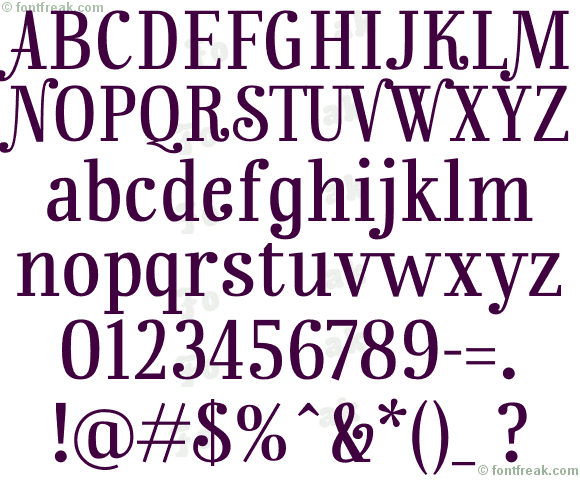
Rainbow Mansion os figures
Rainbow Mansion lining figures
About Rainbow Mansion os figures
Rainbow Mansion os figures font, created by Kelvin Ma using FontForge, is a captivating display typeface that combines elegance with a playful twist. This font is characterized by its unique stroke weight and contrast, offering a balanced and harmonious appearance. The figures feature a distinct design that adds a whimsical flair, making it perfect for various creative projects. The spacing of the letters is thoughtfully crafted, ensuring readability while maintaining an artistic touch.
This font shines in numerous applications, particularly in areas where creativity and visual appeal are essential. It is an excellent choice for wedding invitations, lending a sophisticated yet joyful vibe to the occasion. Additionally, it works beautifully for movie posters, where the combination of style and readability can draw attention and convey the film's theme effectively. For restaurant menus, Rainbow Mansion os figures can create an inviting atmosphere, making diners feel at ease while browsing the offerings. Content creators will also find this font suitable for eye-catching blog headers or social media graphics, helping to stand out in a crowded digital space.
Targeted primarily at graphic designers, small business owners, and content creators, this font serves as a versatile tool for anyone looking to infuse their work with creativity and flair. The playful nature of the design allows for a wide range of interpretations, making it a favorite among those who appreciate unique typographic choices.
In summary, the Rainbow Mansion os figures font free download is not just another typeface; it is a vibrant expression of creativity that stands out among its peers. Its distinctive visual characteristics and versatility make it a valuable addition to any designer's toolkit, ensuring that your projects will always leave a lasting impression.